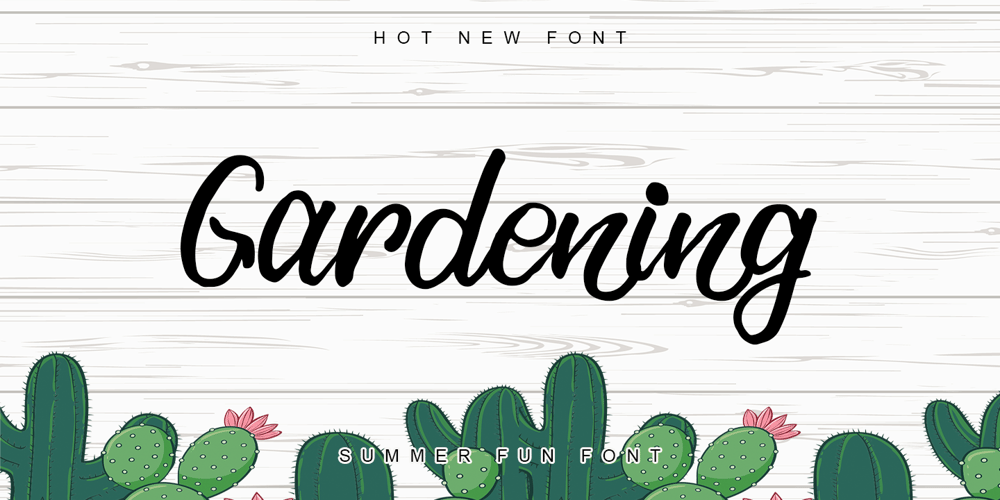
Gardening Font Family was designed by Thomas Aradea and published by Letterara. Gardening contains 2 styles and family package options. Gardening is a stylish, fun, quirky, whimsical, and incredibly distinct script font. Its friendly feel makes this font incredibly versatile, fitting a wide range of contexts. Whether you’re using it for crafting, digital designing, presentations, or greeting card making, it’s perfect! This font is PUA encoded which means you can access all of the awesome glyphs with ease! It also features a wealth of special features including ligatures.